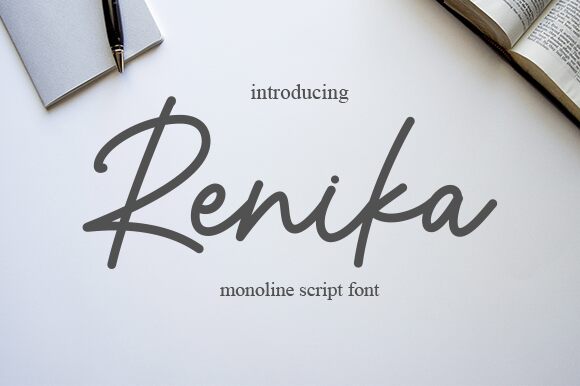
Renika, a charming monoline handwritten font by Graphix Line Studio, is the perfect choice for your next creative project. With its semi-light weight and smooth curves, Renika delivers a graceful and natural aesthetic to your designs. This font is ideal for anything from elegant wedding invitations to playful branding projects. Use it to bring a touch of personality and warmth to your marketing materials or add a personal touch to your blog or website. With Renika's versatile style, you're sure to find the perfect application for this captivating semi-light typeface.
Renika